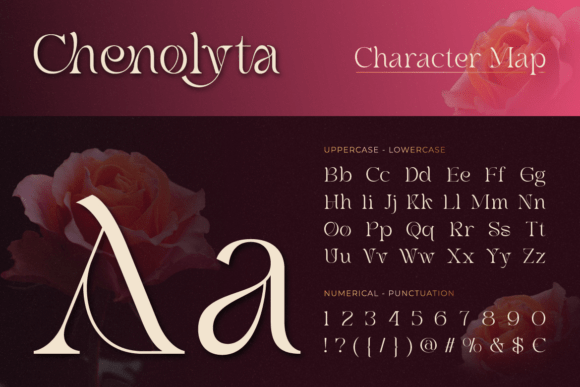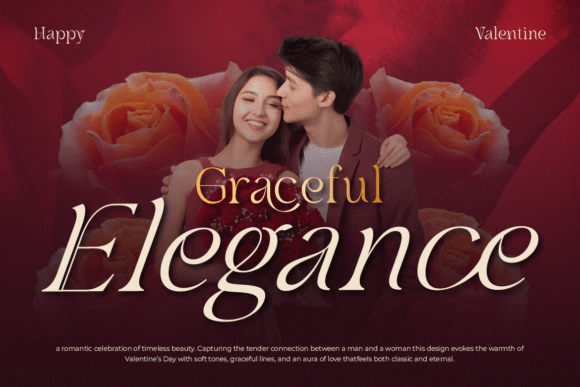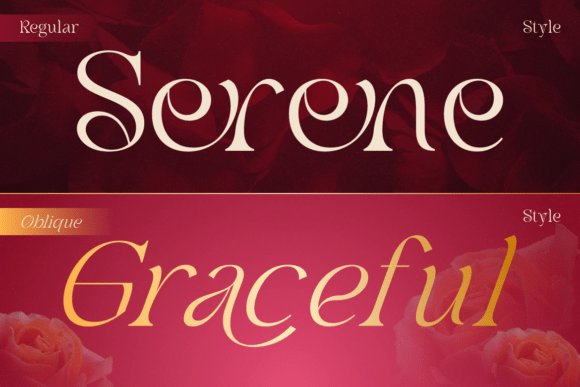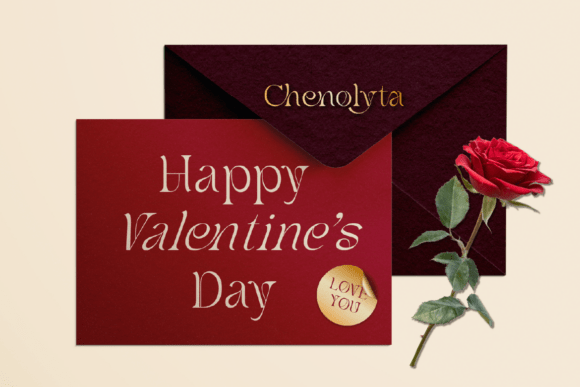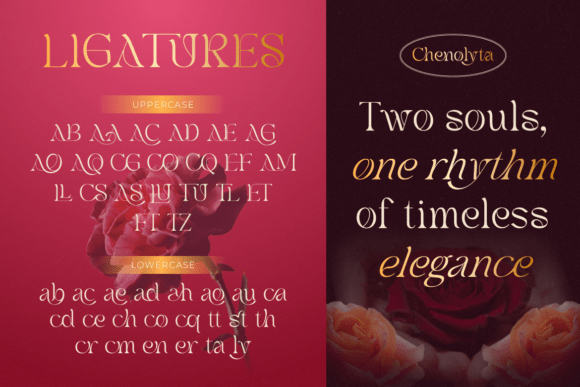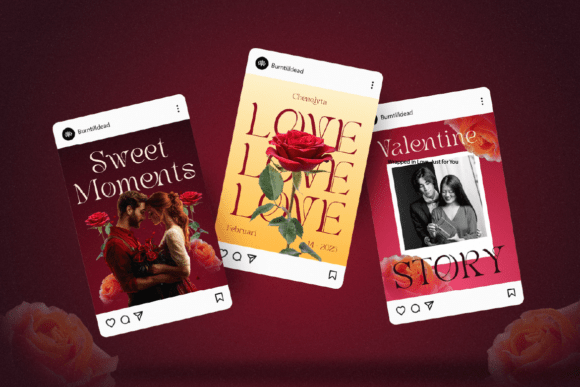
Falling in Love with Chenolyta: The Romantic Font of Your Dreams
Have you ever been in the middle of a design project, only to find yourself stuck on one thing: the perfect font? I recall working on a Valentine’s Day campaign for a client, searching for a typeface that could convey the right amount of romance and sophistication. That’s when I discovered Chenolyta, a beautiful, elegant font that instantly captured my heart. In this article, I’ll share my love for Chenolyta, its features, and how you can make the most of it in your designs.
A Personal Love Affair with Chenolyta
Chenolyta is more than just a font; it’s a statement of elegance and romance. Its modern serif design, coupled with artistic flourishes, makes it perfect for projects that require a touch of sophistication. From Valentine’s designs and perfume branding to wedding invitations and luxury packaging, Chenolyta brings a timeless charm that will make your work stand out.
What I Love About Chenolyta
- ✨ Elegant balance of modern serif and artistic flow
- ✅ 450+ glyphs for endless creative possibilities
- ✅ Oblique and regular styles to suit your design needs
- ✅ Stylish ligatures to add a touch of sophistication
- ✅ Perfect for a wide range of projects, from romantic to luxurious
While Chenolyta is an amazing font, there are a few things to keep in mind:
- ⚠️ Some users might find the font a bit challenging to read in smaller sizes due to its elegant, cursive nature.
- 🤔 The oblique style might not be as versatile as the regular style, but it’s still a great option for adding some flair to your designs.
The Story Behind Chenolyta
Chenolyta was designed with the intention of capturing the essence of romance and elegance. Its creator aimed to craft a font that would speak the language of love through every curve and flourish. The result is a timeless, sophisticated typeface that will make your designs bloom like a rose in full romance.
| Font Name | Chenolyta Font |
| Author | Burntilldead |
| What makes Chenolyta perfect for Valentine’s designs? | Chenolyta’s elegant and romantic design makes it perfect for Valentine’s designs, conveying the right amount of sophistication and love. |
| Is Chenolyta suitable for body text? | While Chenolyta is beautiful, it might not be the best choice for body text due to its elegant, cursive nature. It’s better suited for headlines and titles. |